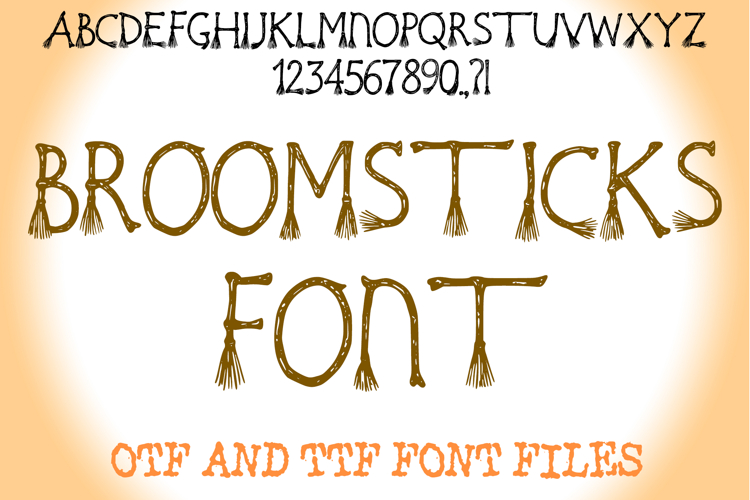
Broomsticks Halloween Lettering ABC Text Font Alphabet OTF
A spooky witch style font where you can create your own words and colour them to your vision!